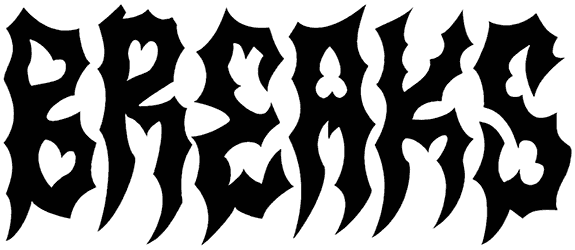
Bedug Font
Organize your letters in the same contemporary manner as Bedug and leave the rest to it. You can just watch the master at work, as this wide font puts more emphasis on your words and lets everyone know that this message of yours is of high priority.
So it should be clear now why designers can’t say no to Bedug, despite the lack of lowercase. It’s gonna prove useful for banners on highways, banking designs, and everything here and there.